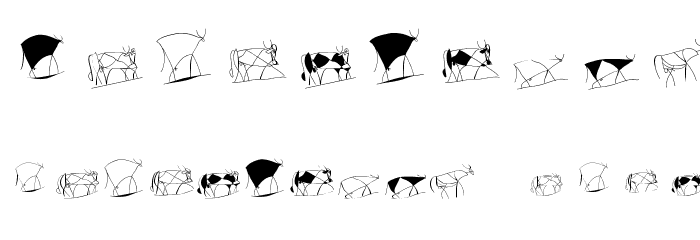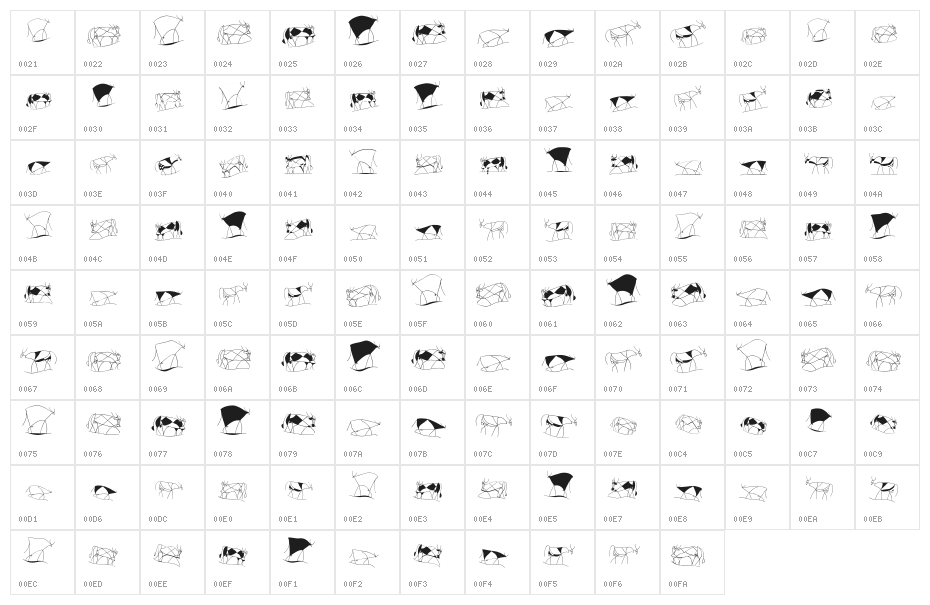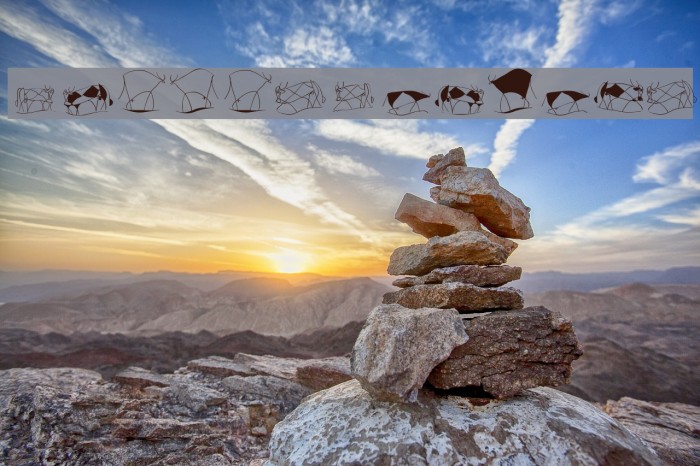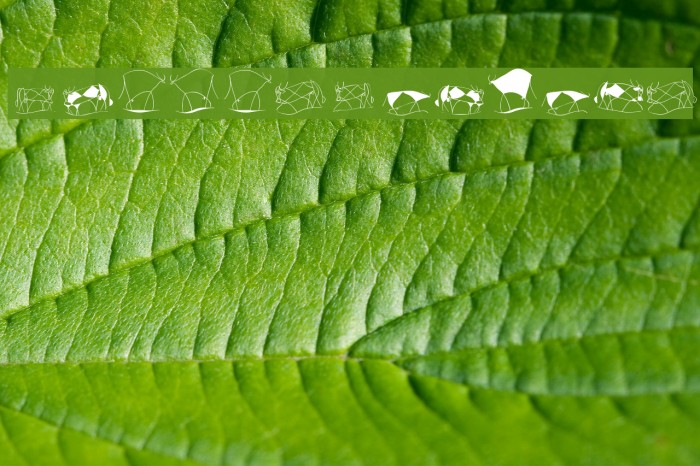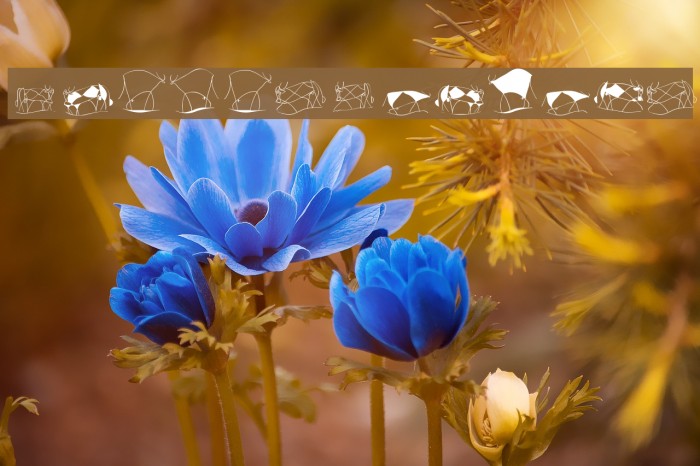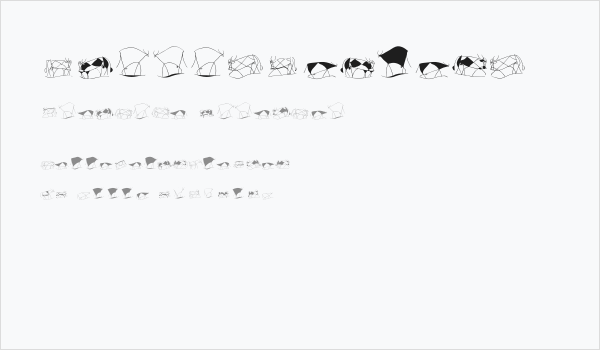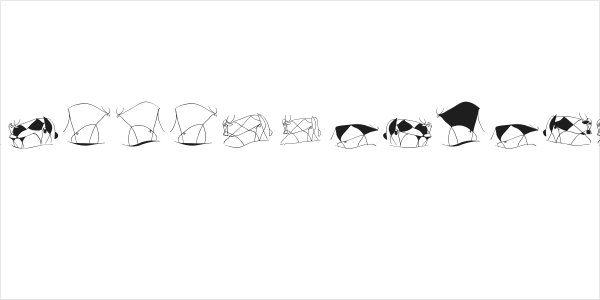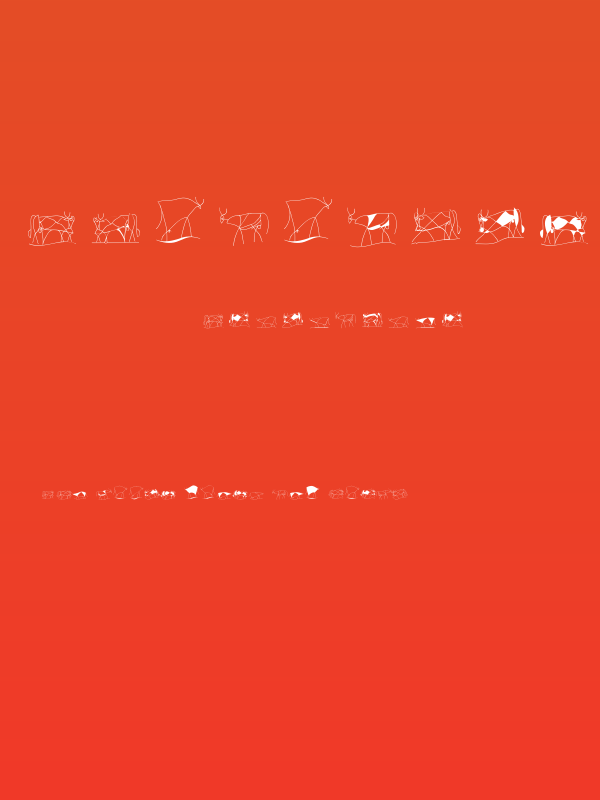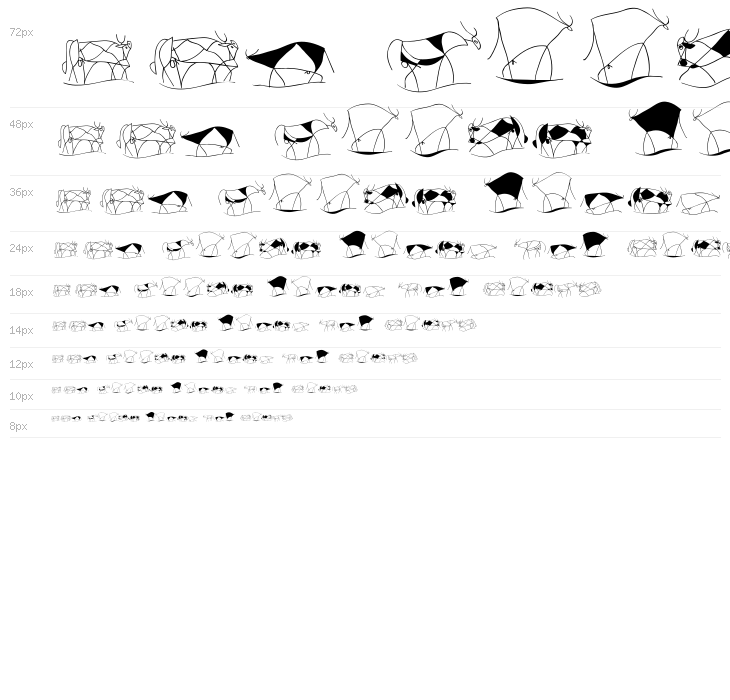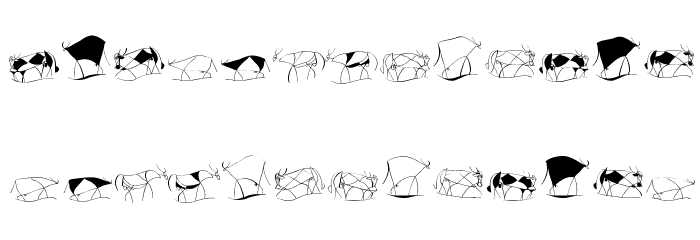
TaurusCowboys Font
TaurusCowboys Description
A decorative display font where each character is represented by a stylized, abstract line drawing of a bull or cow, some with filled black areas, evoking a hand-drawn, artistic, and playful feel.
| Overall Style | Decorative, Artistic, Playful |
| Use Case | Logos, Posters, Themed Headlines, Artistic Displays |
| Proposed Projects | ChildrenΓ’β¬β’s books, farm branding, playful posters, art projects, themed event invitations. |